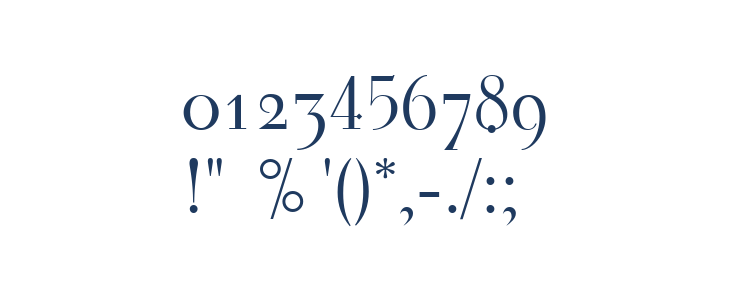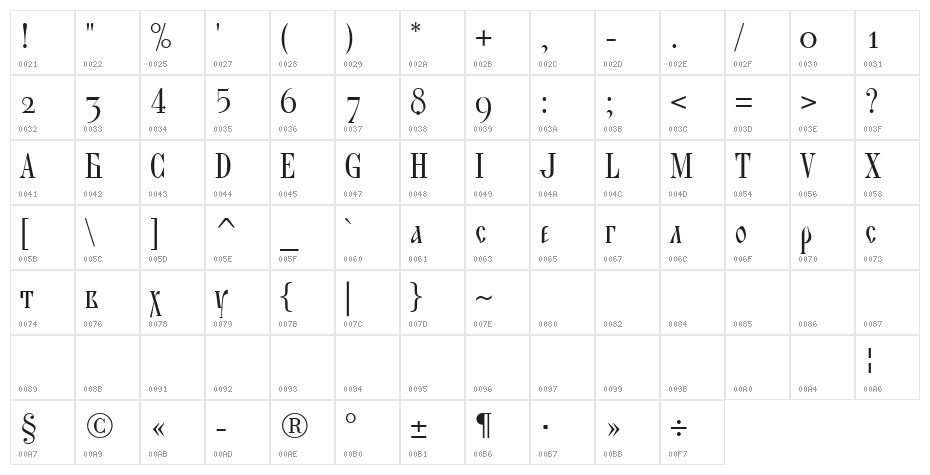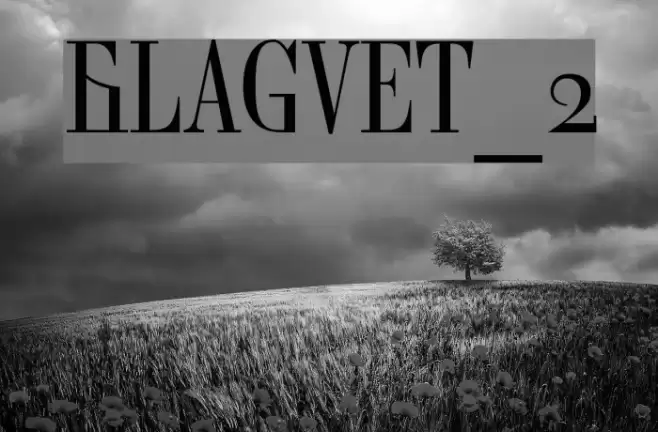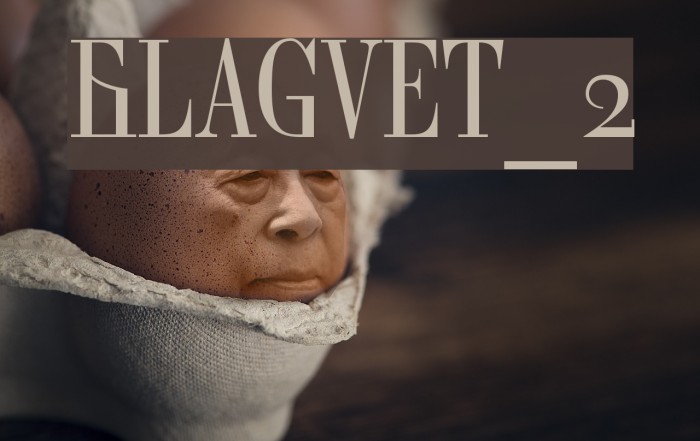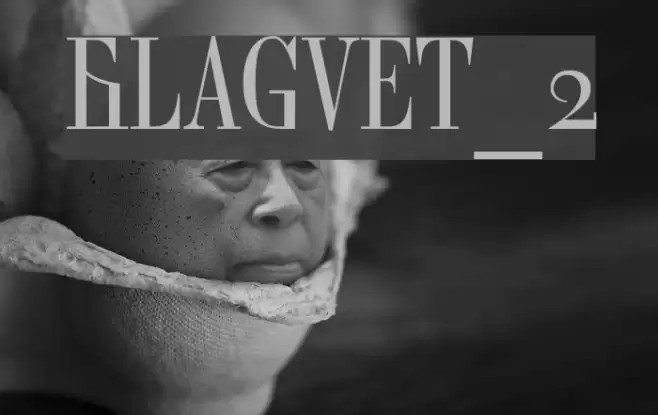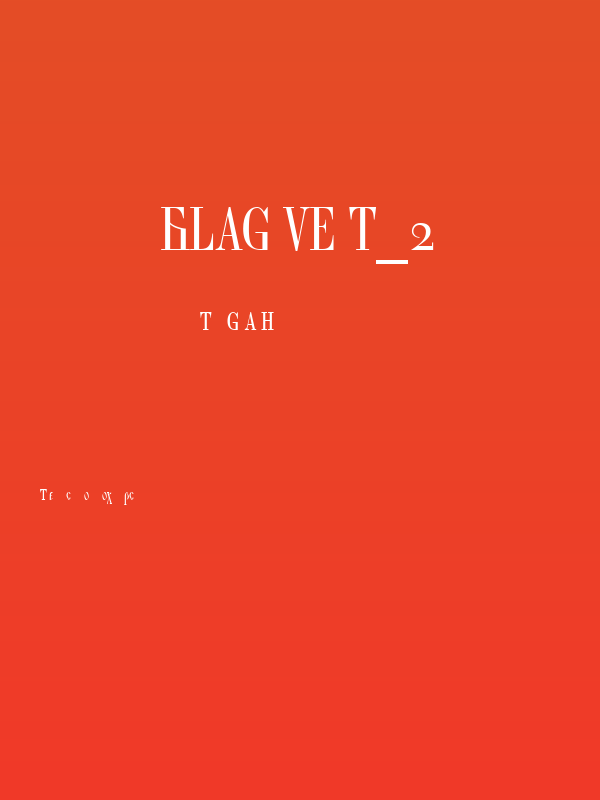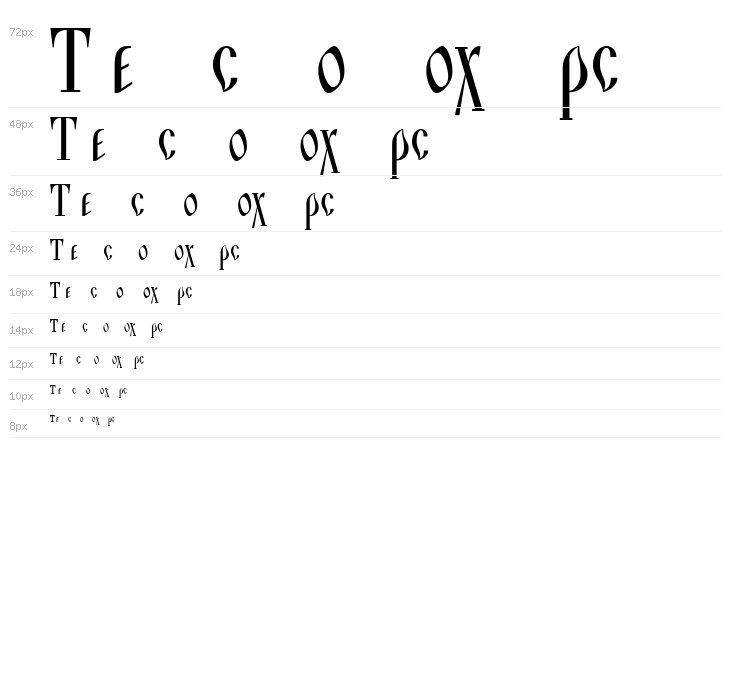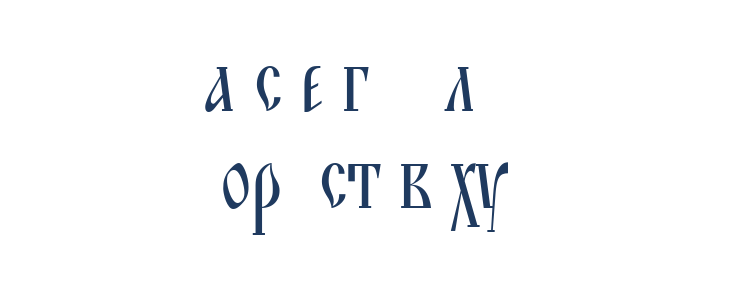
BLAGOVEST_2 Font
BLAGOVEST_2 Description
This font exhibits a unique blend of modern and vintage styles, characterized by its high contrast between thick and thin strokes. The uppercase letters are tall and elegant, with distinct serifs that add a touch of sophistication. The lowercase letters maintain a similar style, with some characters featuring unconventional shapes that enhance the font's decorative appeal. The numerals are bold and slightly condensed, ensuring readability while maintaining the overall aesthetic. Special characters are creatively designed, adding to the font's versatility and charm.
| Overall Style | Modern Vintage |
| Use Case | Headlines, Logos, Decorative Text |
| Proposed Projects | Ideal for branding, poster design, book covers, and editorial layouts where a touch of elegance and uniqueness is desired. |